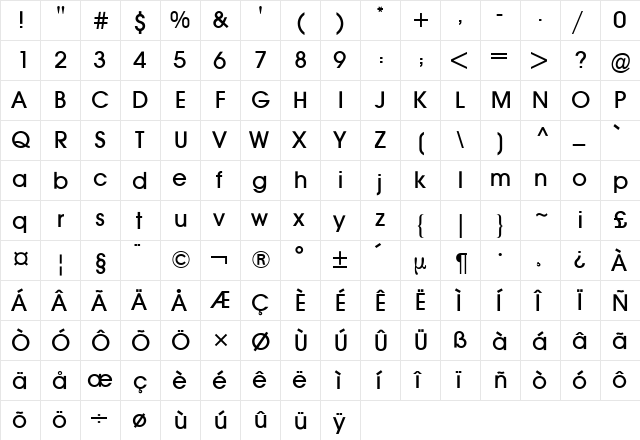
Avant Garde 2 BQ Roman
Avant Garde 2 BQ is a composed and adaptable typeface that performs quietly and consistently across a wide range of design contexts.